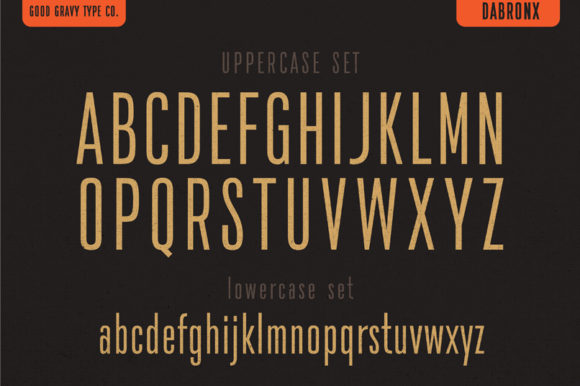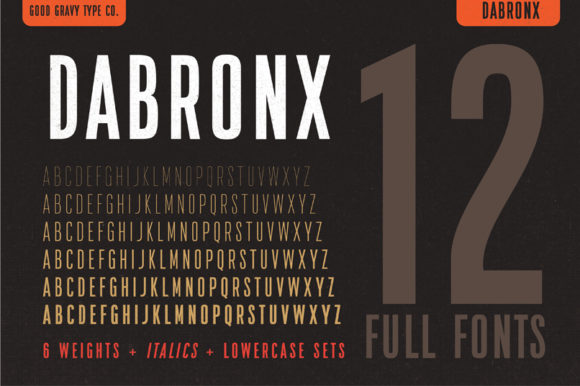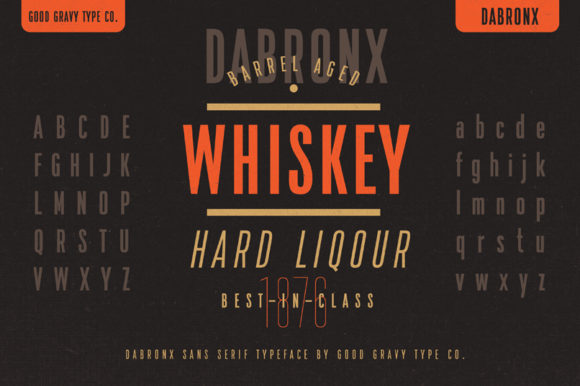
Introduction to Dabronx Font Font
Fonts play a crucial role in design, and the Dabronx Font font is a typeface that brings both character and versatility to any project. Whether you’re working on a branding project, a website, or a print design, the Dabronx Font font offers a unique style that can elevate your work.
| 📌 Font Name | Dabronx Font |
| 👤 Author | Good Gravy Type |
Dabronx is a classic and condensed sans serif font.
It comes with 12 different styles This versatility means that this font can be used in a wide variety of applications from branding and social media posts to logos design – the only limit is your imagination.
Key Features of Dabronx Font Font
Why Choose Dabronx Font Font?
The Dabronx Font font is more than just a typeface – it’s a design tool that helps you communicate your message with style and clarity. Its unique character set and versatile design make it suitable for a wide range of applications, from elegant invitations to bold headlines.
With its carefully crafted letterforms and balanced proportions, the Dabronx Font font ensures readability and visual appeal across all mediums.
What makes Dabronx Font font special?
The Dabronx Font font stands out with its unique design, exceptional readability, and versatility across various design applications.